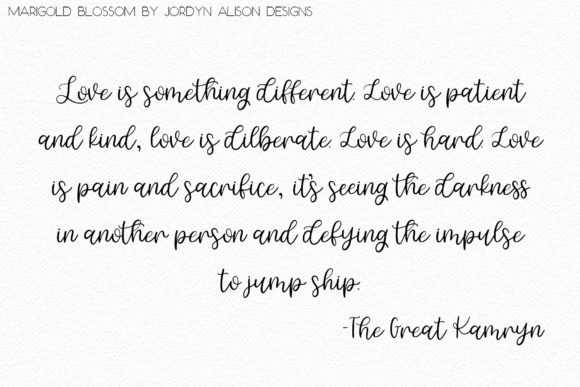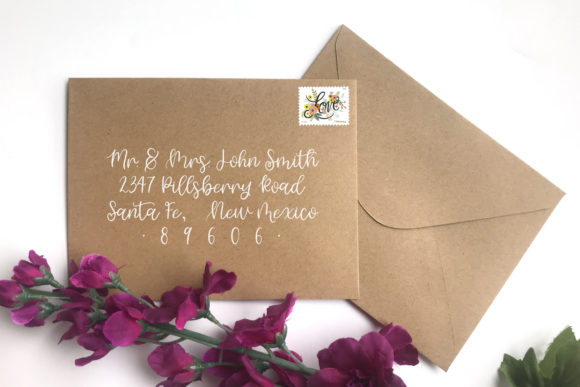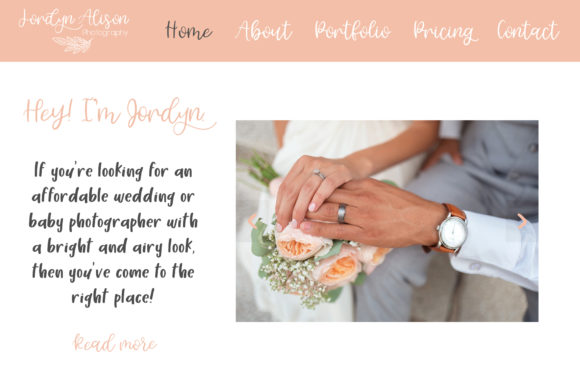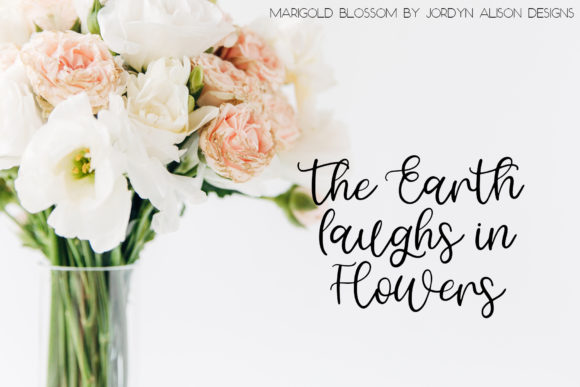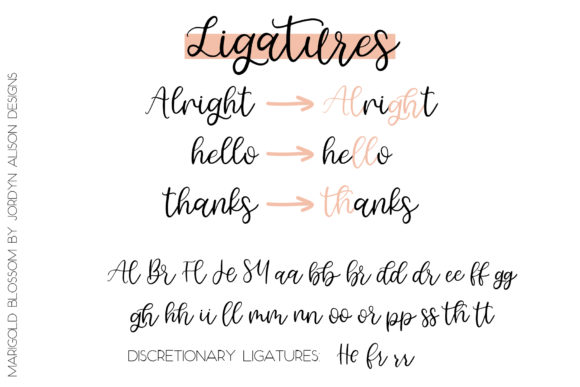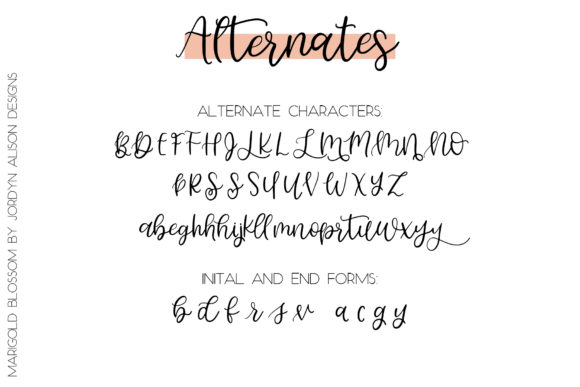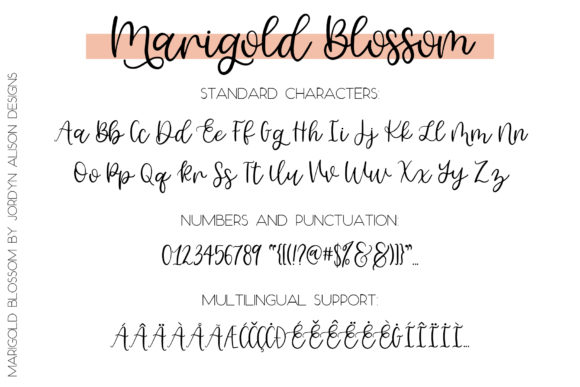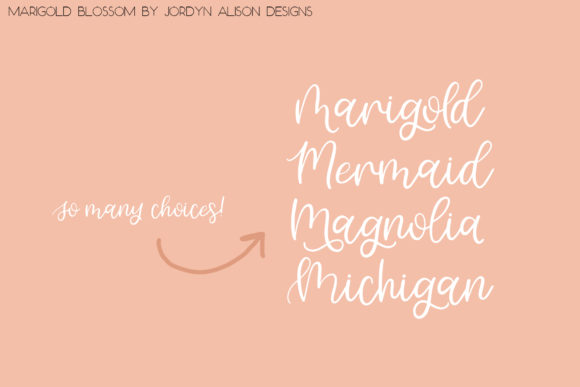
Marigold Blossom Font
About Marigold Blossom Font
Marigold Blossom is a sweet, soft hand-lettered script that pays homage to classic calligraphy fonts. The gorgeous characters make it the perfect font for creating stunning crafting projects. Marigold Blossom comes packed with 90 alternates, which will allow you to add a decorative touch within seconds.
Fall in love with its playful and romantic feel and use it to create gorgeous wedding invitations, beautiful stationary art, eye-catching social media posts, and cute greeting cards.